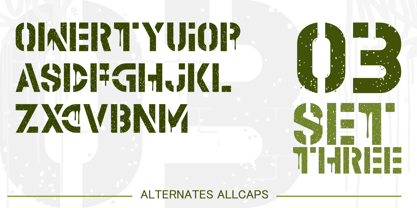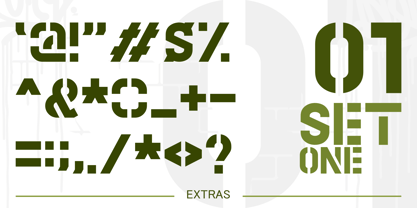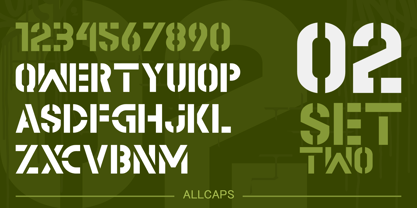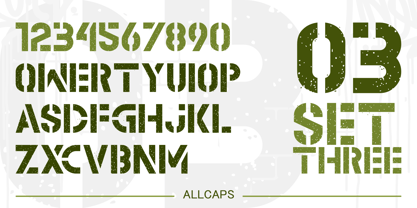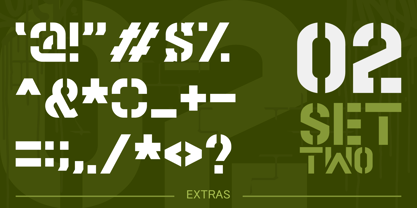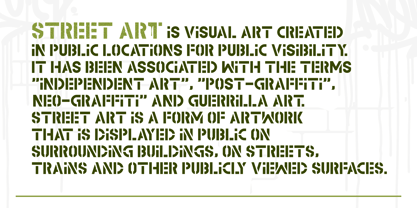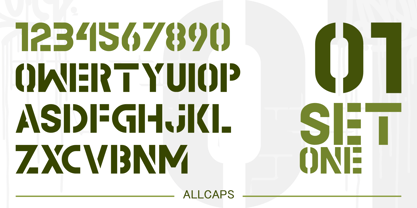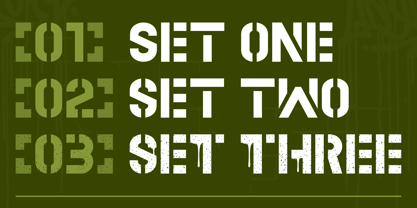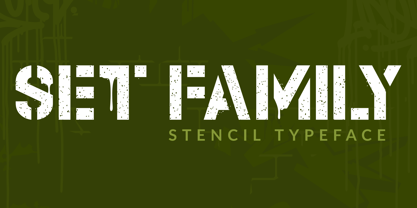
Set Family
The Set Family Font Family was designed by Anton Kustsinski and published by Iron Set Studio. Set Family contains 3 styles and family package options. More about this family
This unique stencil-style typeface draws inspiration from street art and graffiti culture. With its bold, geometric cuts and industrial aesthetic, the font evokes the raw energy of urban environments. Each letter features distinct stencil gaps, making it ideal for designs that emphasize creativity, rebellion, and modern edge. The strong, angular shapes and clean lines reflect an industrial style, while the overall design maintains a sense of artistic individuality - perfect for posters, branding, or any project seeking a street-inspired, authentic feel.
Iron Set Studio is a bold and experimental type design studio focused on creating unique graffiti, stencil, and abstract fonts. Inspired by urban culture, street art, and modern visual trends, the studio transforms raw energy into expressive letterforms that challenge convention. Each font blends creativity with attitude, making text not just a message, but a striking visual identity for artists, designers, and brands seeking originality.